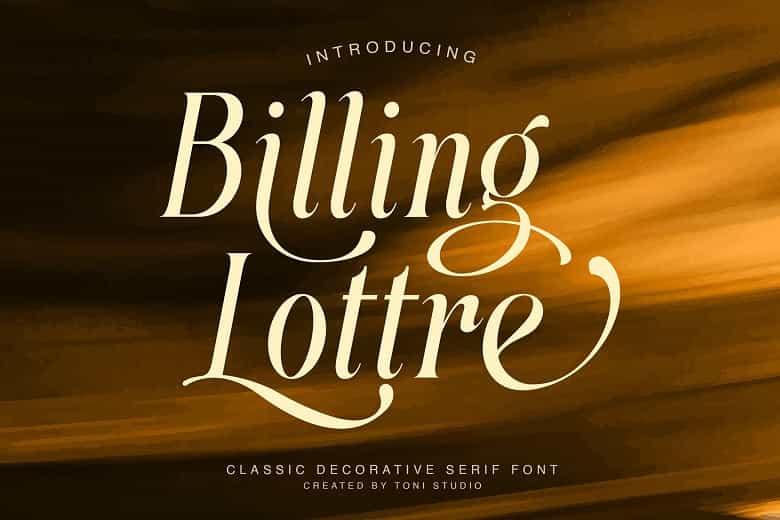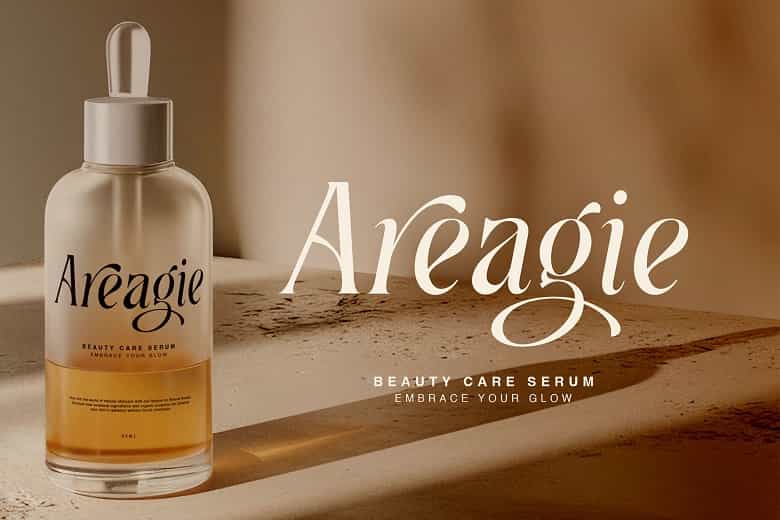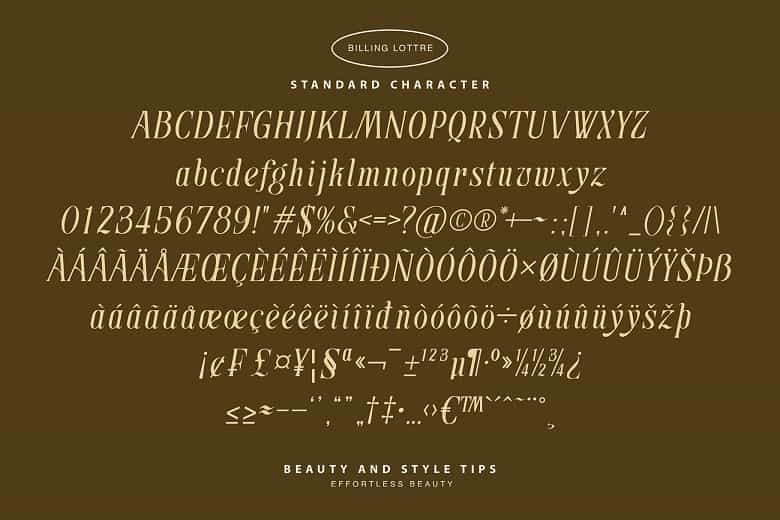
Billing Lottre is a lovely little typographic solution for a number of different design tasks. This font is suitable for stylish & luxury logos, sophisticated newspaper and magazine designs, women’s publications, fashion and cosmetics, fashion advertising, modern commercials, invitations, art quotes, interior design, books, titles and covers, events, bags, promos and ads and more.